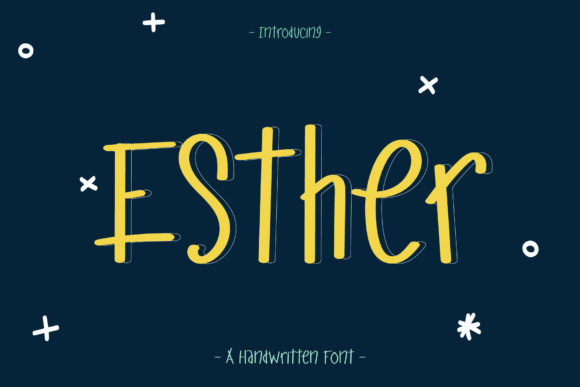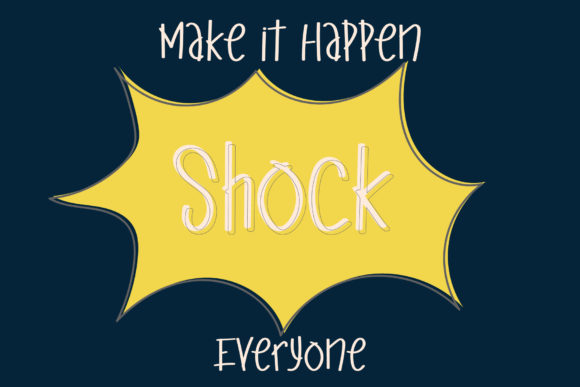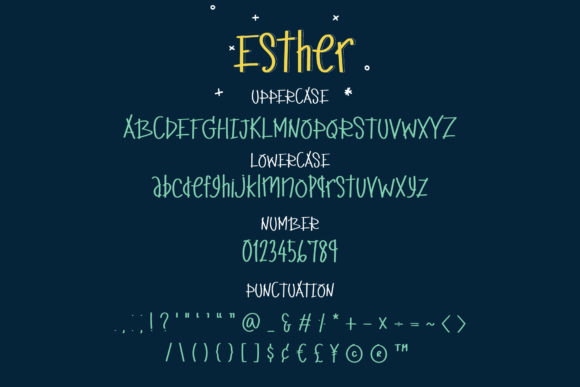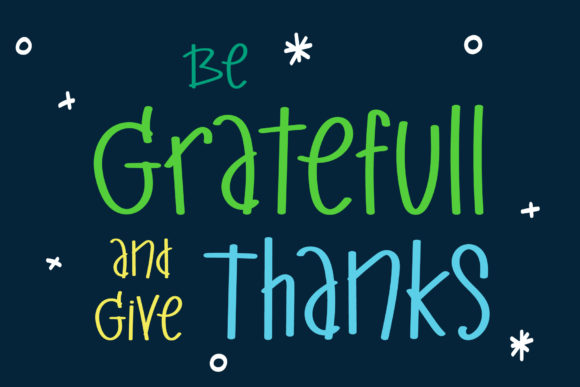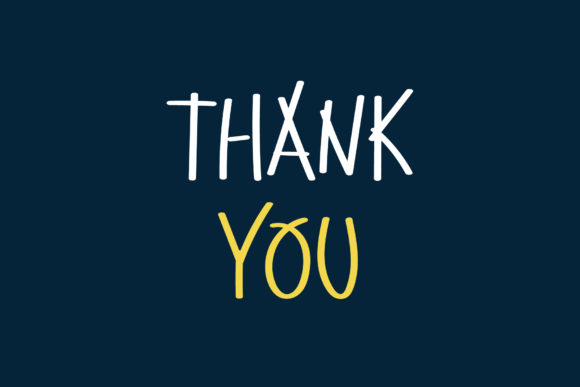
Esther Font
About Esther Font
Esther is a fun handwritten font. Clean and a little bit quirky, this font is the perfect fit for all of your logos, branding, social media, and crafty DIY projects.